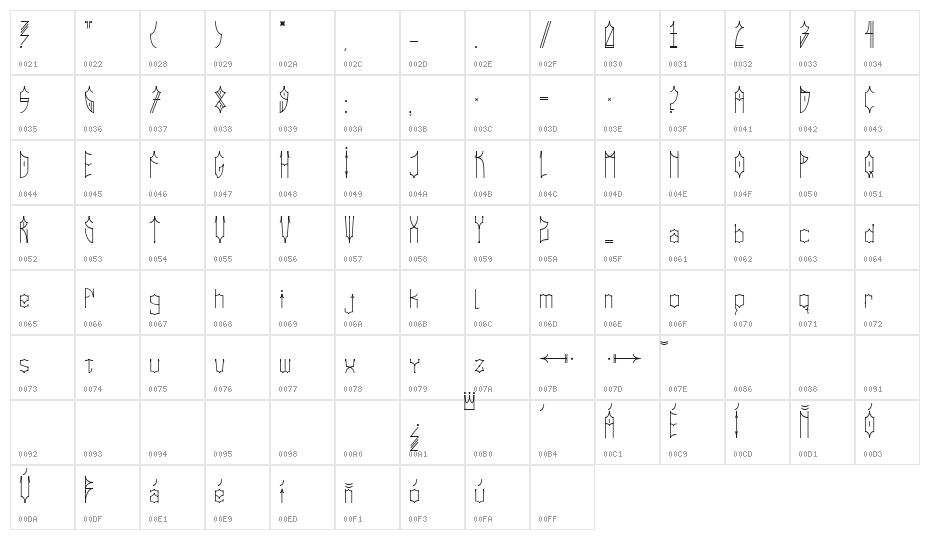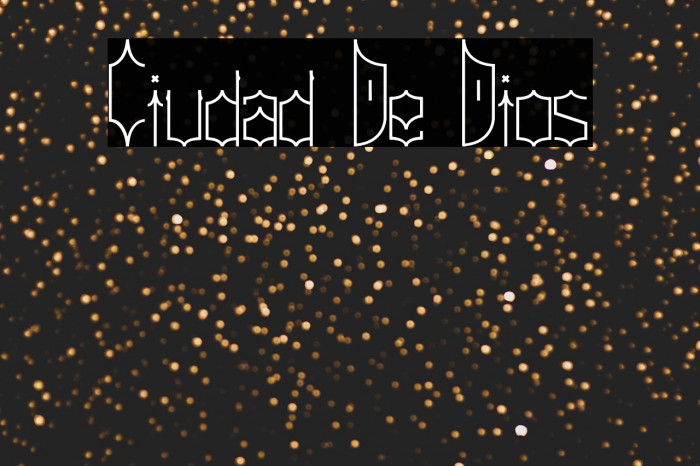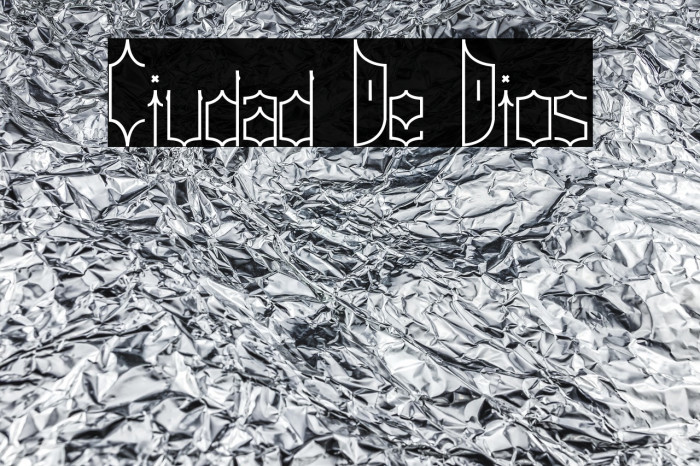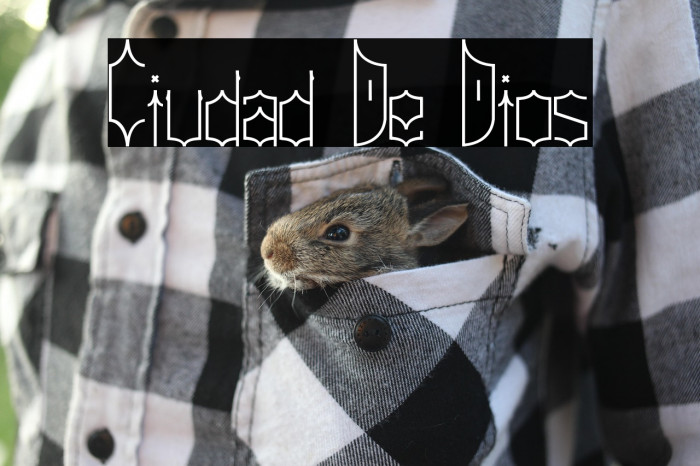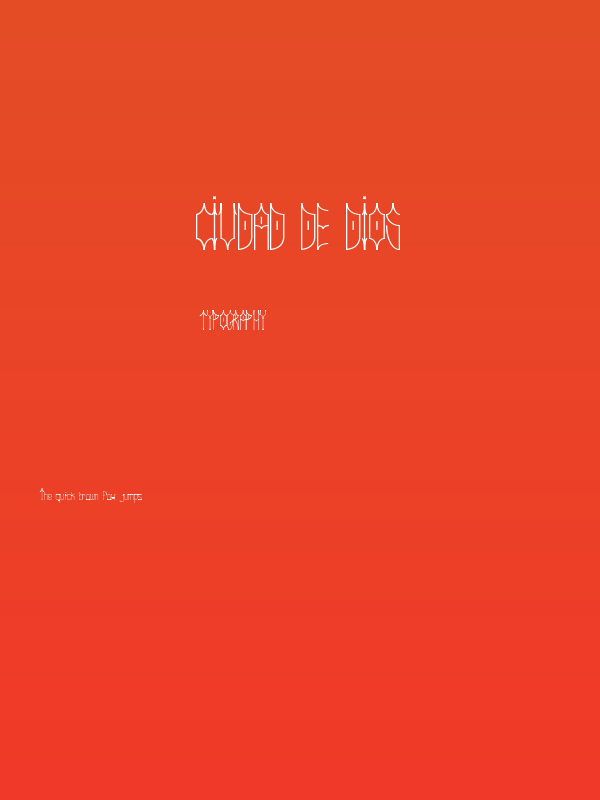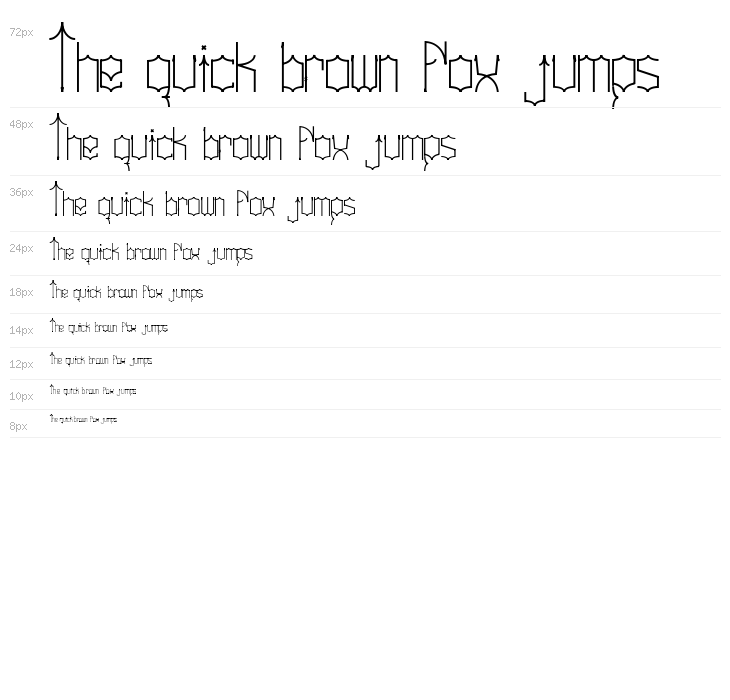
Ciudad De Dios Font
Ciudad De Dios Description
This font features a unique and intricate design with sharp angles and geometric shapes, giving it a distinct and edgy appearance. The uppercase letters are characterized by tall, narrow forms with pointed serifs and decorative elements that add a touch of elegance. The lowercase letters maintain the angular style, providing a cohesive look throughout the alphabet. Numbers and special characters follow the same design principles, ensuring consistency. The overall style is modern and decorative, making it suitable for projects that require a bold and artistic statement.
| Proposed Projects | Ideal for branding, posters, album covers, and any project that requires a bold, artistic touch. |